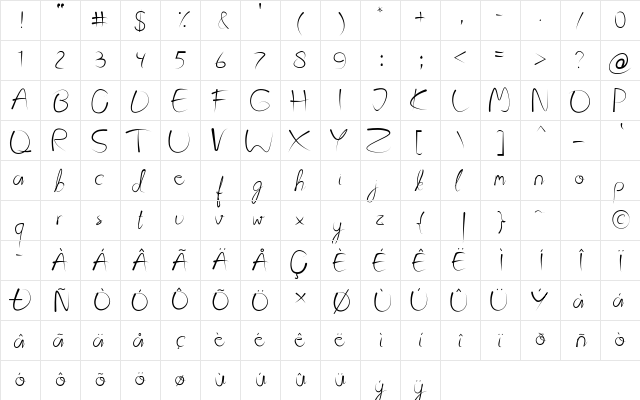
Kattyland Regular
| Designer | Creatnowstudio 2019 |
Design Context for Kattyland Typeface
Kattyland is a composed and adaptable typeface that performs quietly and consistently across a wide range of design contexts.